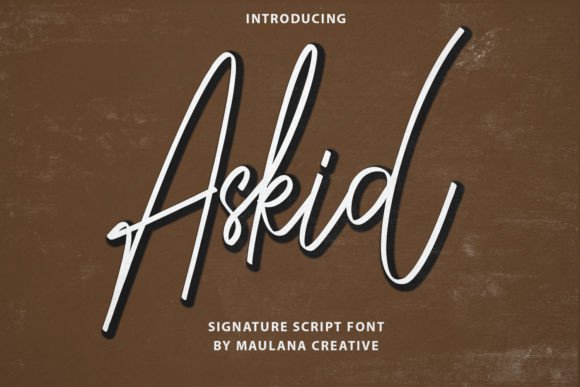
The Power of Askid Font: Elevate Your Designs with a Stunning Signature Script
Have you ever been in the middle of a design project, and suddenly, you’re stuck on finding the perfect font? I recall a recent experience where a client asked for a logo design that exuded elegance and sophistication. After scouring through numerous font options, I stumbled upon the Askid Font, a beautiful signature script font that completely transformed my design. In this article, we’ll dive into the world of Askid Font, exploring its features, uses, and tips on how to make the most of this stunning typeface.
A Personal Review of Askid Font
- ✨ Elegant and sophisticated design, perfect for logos, social media, and titles
- ✅ Highly versatile, suitable for both short and long texts
- 💫 Beautifully crafted with attention to detail, making it perfect for signature or script typefaces
- 🎨 Great for creating stunning visual works, such as movie titles, book titles, and more
While Askid Font is an excellent choice for many design projects, there are a few minor quirks to be aware of:
- 🤔 Some users may find the font a bit too ornate for certain design applications
- ⚠️ Limited availability of certain characters or glyphs, which may require additional editing
A Practical Guide to Using Askid Font
- Experiment with OpenType features, such as glyphs and stylistic alternates, to add unique touches to your design
- Explore the font’s OpenType features, such as ligatures and swashes, to add a personal touch to your design
The Backstory of Askid Font
The Askid Font was designed with the intention of creating a beautiful, elegant script font that could be used for a variety of design applications. The designer aimed to craft a font that was both refined and approachable, making it perfect for logos, titles, and more.
Q: What is the best use for Askid Font?
A: Askid Font is highly versatile and can be used for a range of design applications, including logos, social media, titles, and more.
Q: Is Askid Font suitable for long texts?
A: Yes, Askid Font is designed to be legible and readable, making it suitable for both short and long texts.